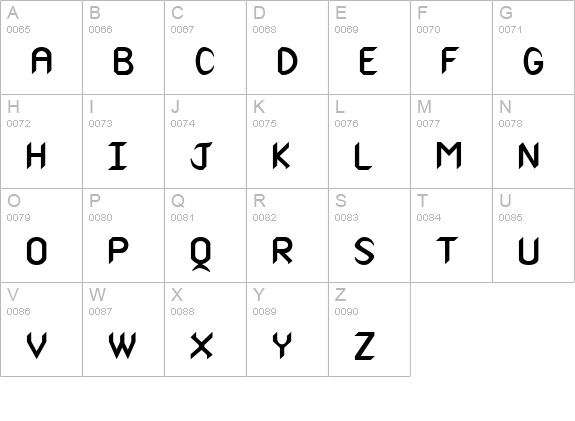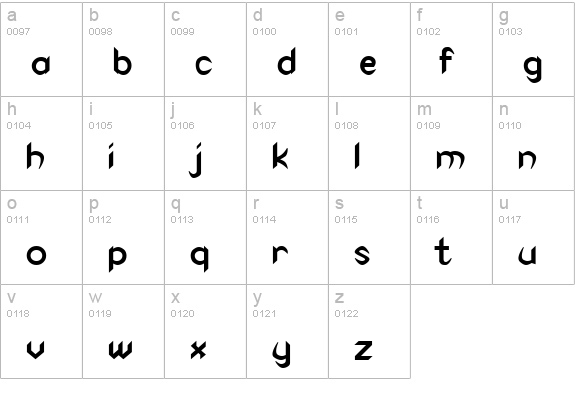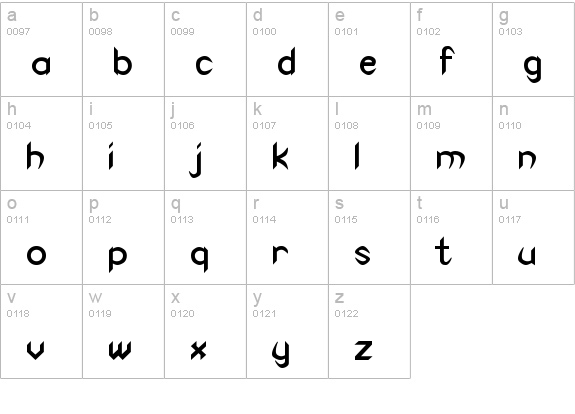
Spike Bold is a strong, high-contrast variant in the Spike typeface family \xE2\x80\x94 well suited to headlines, attention-grabbing titles, and strong calls-to-action.
Introducing Spike Bold, a powerful and captivating font that is sure to make a bold statement in any design project. With its strong, sharp, and edgy letterforms, Spike Bold exudes confidence and demands attention. This unique font is perfect for headlines, logos, posters, and any other design that requires a touch of impact and personality. Its distinct and bold nature allows it to stand out from the crowd and leave a lasting impression on your audience. Spike Bold is not only visually striking, but it also offers versatility and ease of use. It is suitable for both print and digital media, making it a valuable asset for designers across various platforms. One of the best features of Spike Bold is that it is freely available to download at FontsMarket.com. This means that you can easily access and use this stunning font without any restrictions or limitations. Whether you are a professional designer or a hobbyist, Spike Bold gives you the freedom to bring your creative visions to life. So, why settle for ordinary when you can have extraordinary? Download Spike Bold today and unleash its powerful energy in your design projects. Let your typography speak volumes and captivate your audience with this remarkable font.